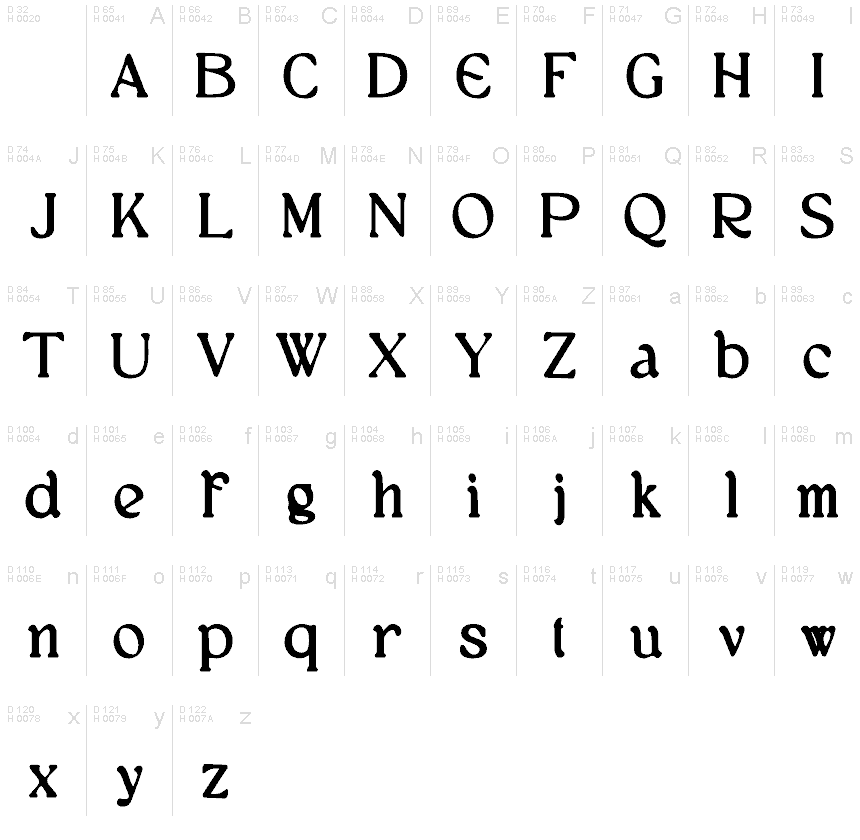
EgmondBlur-Regular
Egmond Blur font by Craft Supply Co. is a vintage serif font with strong historical influences from right within its strokes. Irregularities together with organic curves are combined in an elegant design with some kind of a unique touch not present in any other font. This vintage font matches titles of all sizes while also getting the reader's attention!
More than perfect for classic book titles and body text, the high contrast present makes this it ideal as magazine covers typography, business logotype, church invitations or branding development. More use cases include wedding designs, personalized stationery ideas, social networks image posts, video subtitles and more!